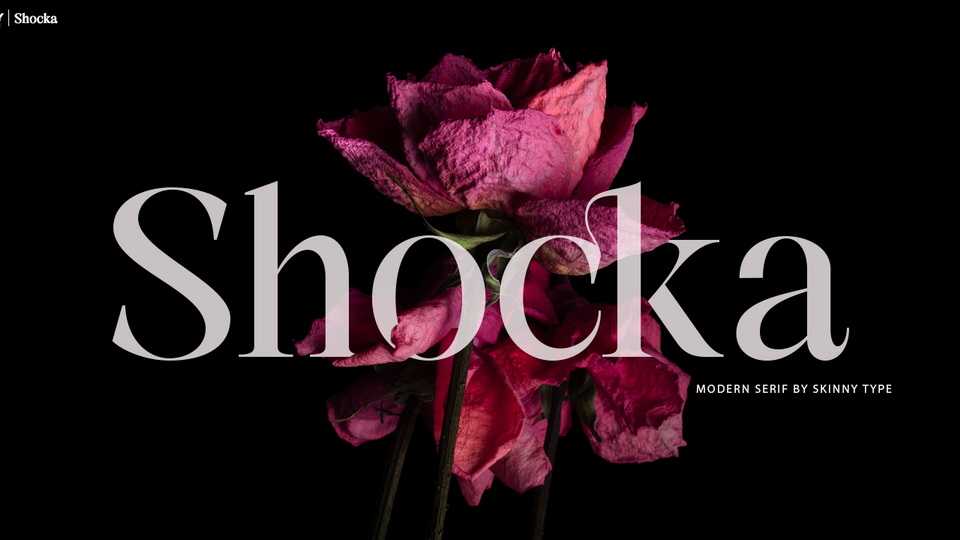
Download Shocka font, a serif typeface that charms with its simple, clean and visual elegance, with smooth curves and beautiful ligatures. Shocka is a very versatile font that works in both large and small sizes.
Designer: Skinny Type